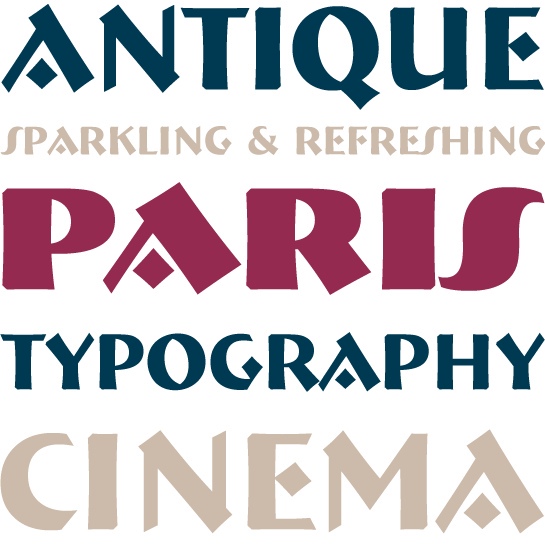
Bremen Font
Bremen Font is perfect for German-inspired brewery branding, European heritage museums, traditional craft guilds, historic maritime companies, cultural exchange programs, authentic German restaurants, medieval festival promotions, and heritage tourism marketing. This distinguished typeface excels in applications where German cultural heritage and European craftsmanship traditions are essential for creating authentic and memorable brand experiences that honor Germanic cultural legacy.
What makes Bremen Font truly exciting is its authentic embodiment of Germanic heritage and Hanseatic League tradition that captures the proud merchant history of northern German cities and the enduring legacy of European craftsmanship. The font features sturdy letterforms with traditional German character details and medieval-inspired construction that mirror the solid architecture of Hanseatic buildings and the reliable craftsmanship of German artisans. Its heritage personality and Germanic character create an immediate sense of cultural authenticity and traditional quality that resonates with audiences seeking genuine European experiences and heritage craftsmanship. The typeface's German appeal and medieval charm make it perfect for brands wanting to convey tradition, quality, and connection to the rich cultural heritage of Germanic civilization and European guild traditions.
The Bremen Font family includes regular and bold weights with Germanic styling, complemented by traditional alternates and medieval-inspired decorative elements. The font offers comprehensive character sets with German symbols, heritage ligatures, and cultural styling details that enhance its authentic aesthetic. Additional graphic elements including guild marks, medieval patterns, Germanic ornaments, and traditional flourishes provide designers with complete branding tools rooted in German cultural traditions and European heritage.